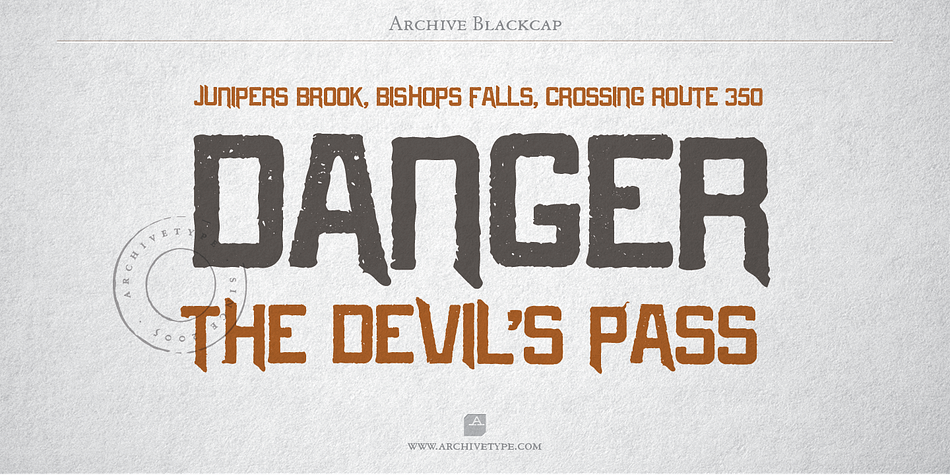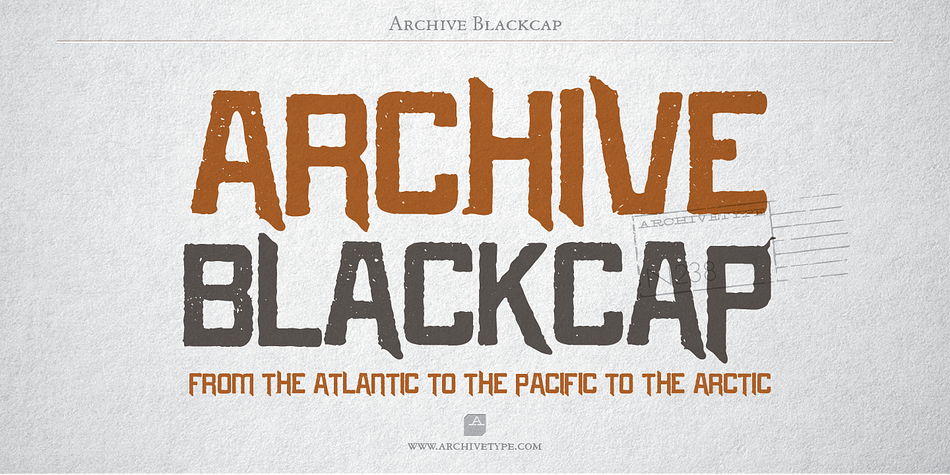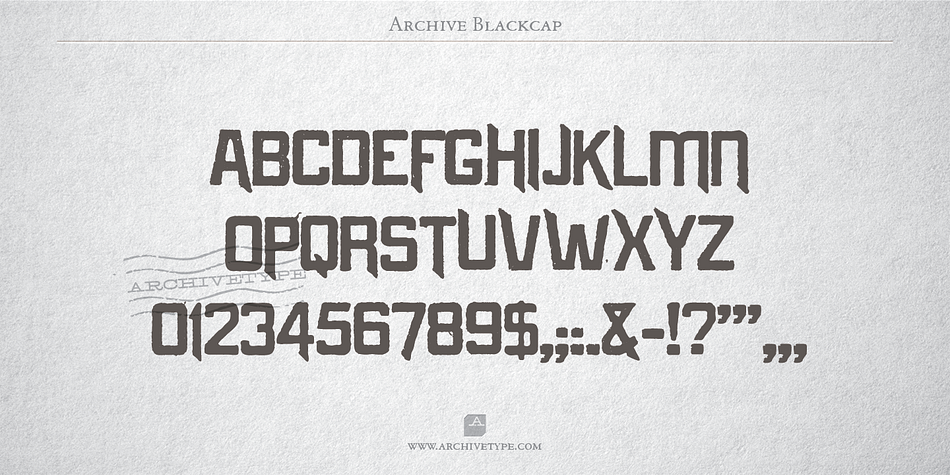
Archive Blackcap is a grunge and display sans font published by ArchiveType.
Archive display typefaces are reproduced as they appeared in print. In order to preserve the original feel of typefaces, no additional characters were added to originals therefore most of fonts consist just of basic character set. Upper case letters, lower case letters, numerals and basic punctuation.